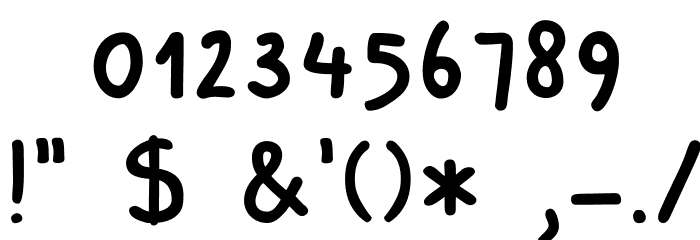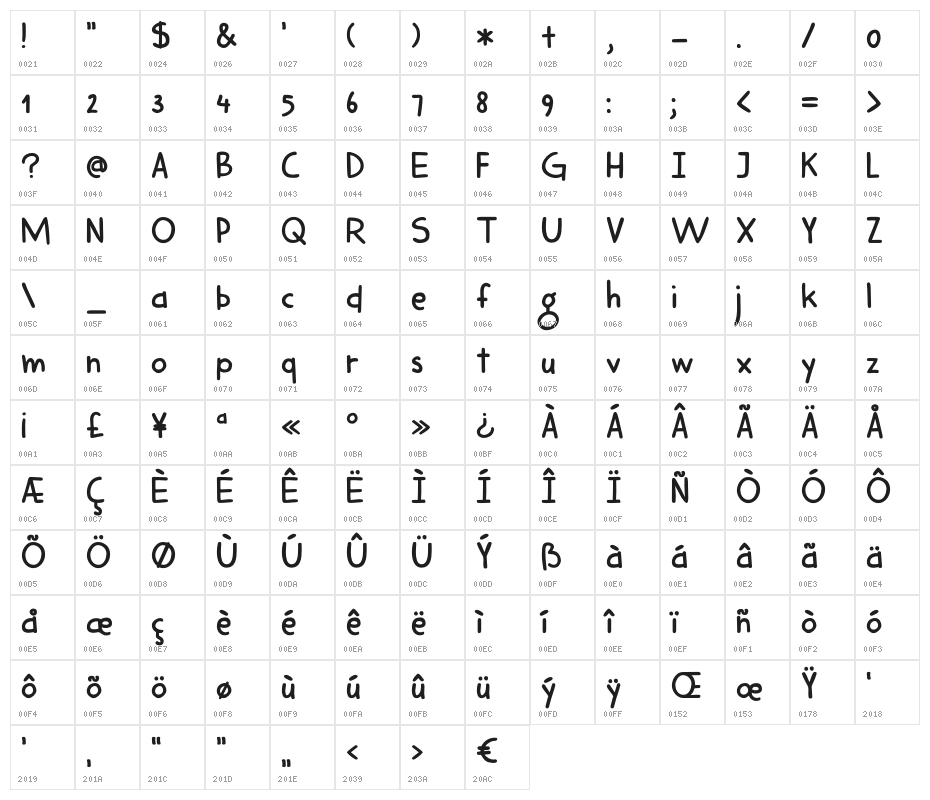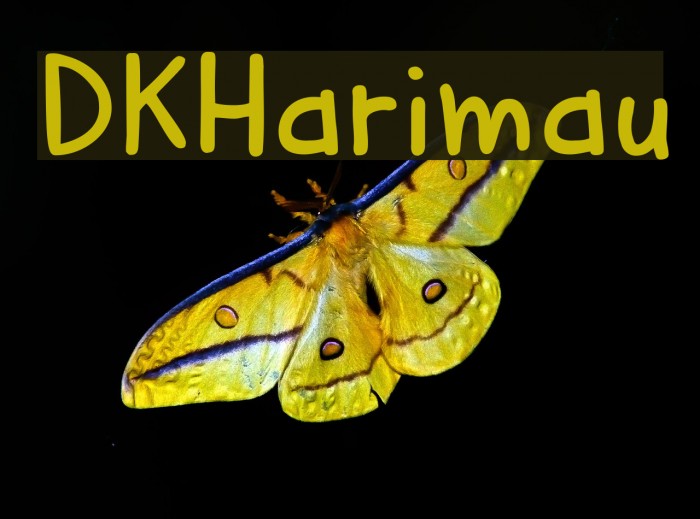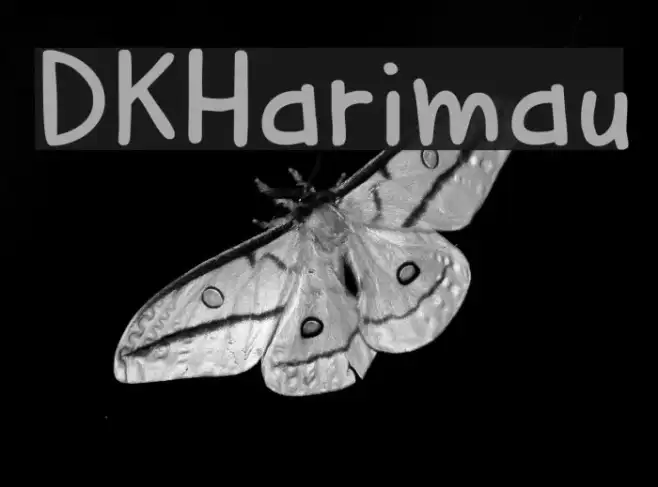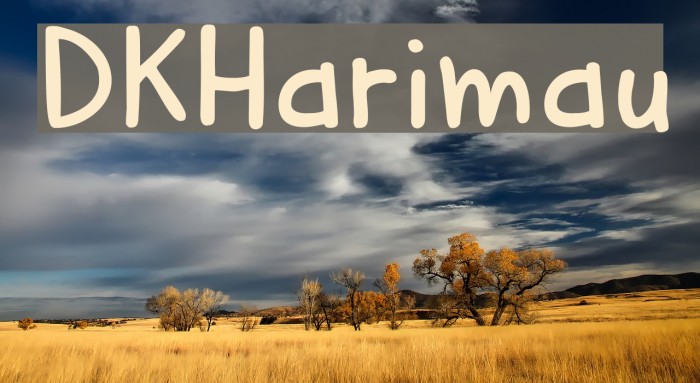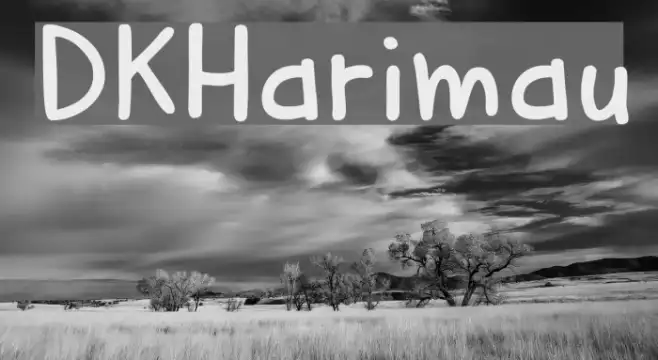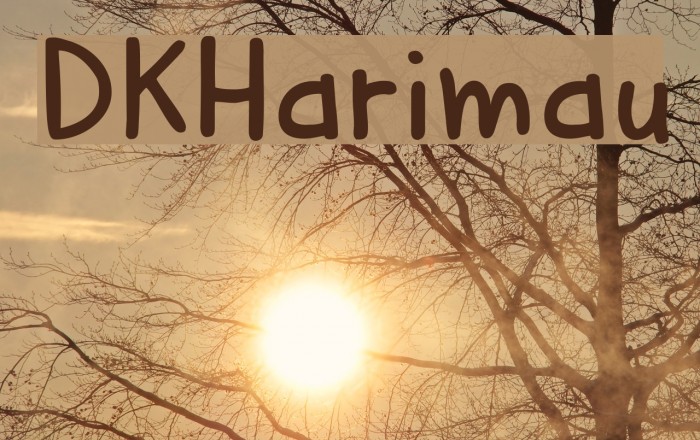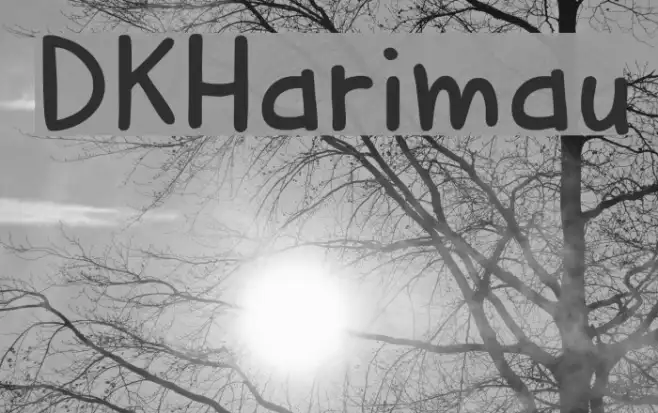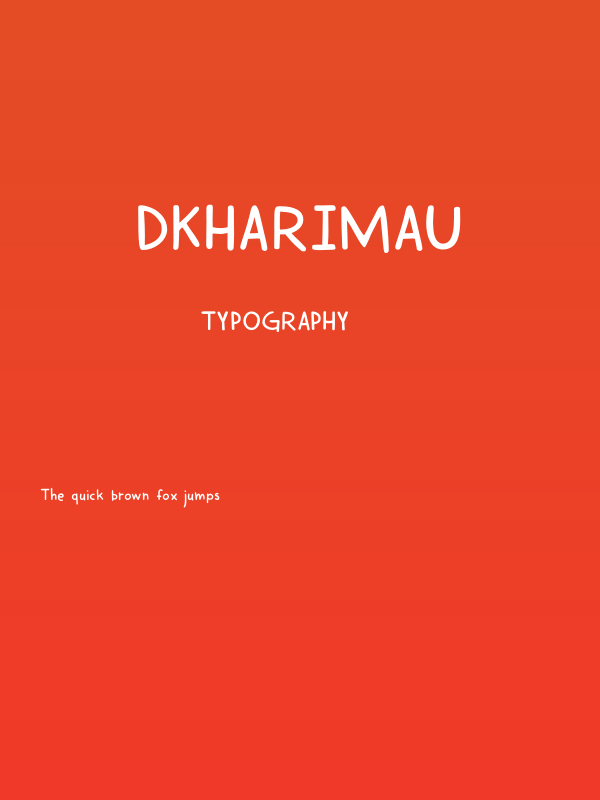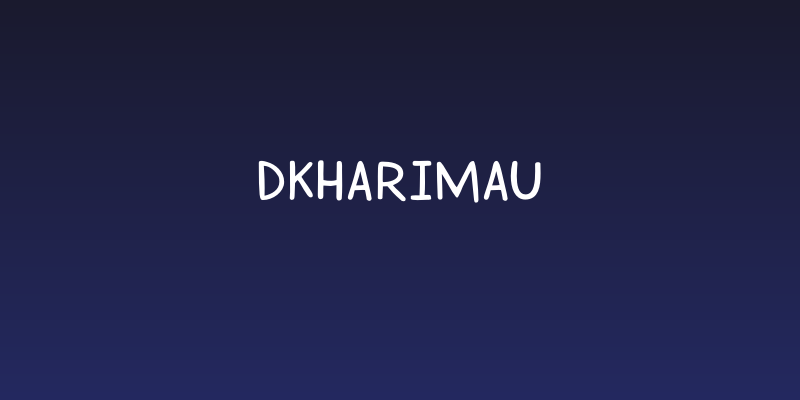
DKHarimau Font
DKHarimau Description
This playful and rounded font features a handwritten style with a casual and friendly appearance. The characters are bold and slightly irregular, giving it a whimsical and approachable feel. The strokes are consistent in width, contributing to a uniform look across all characters. The font includes a full set of uppercase and lowercase letters, numbers, and a variety of special characters, making it versatile for different uses. Its informal style is perfect for projects that require a personal touch or a fun, lighthearted vibe.
| Proposed Projects | Ideal for children's books, greeting cards, playful branding, and casual invitations. |